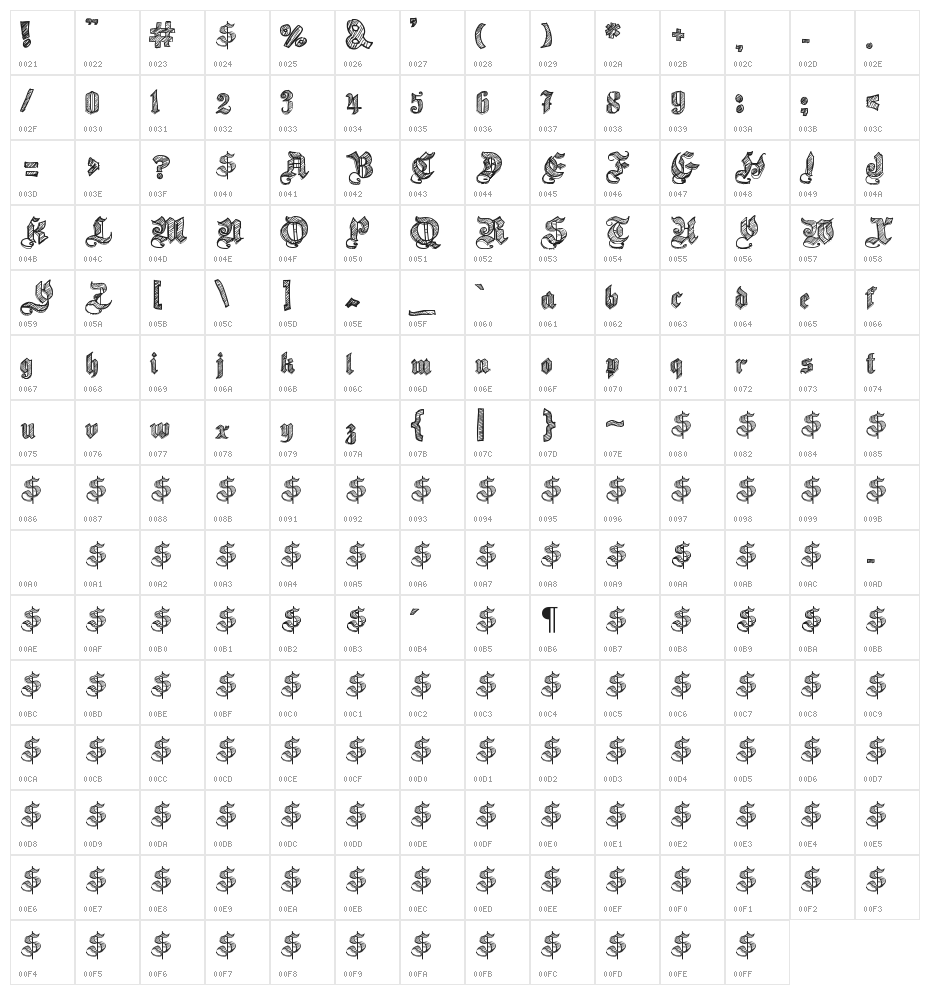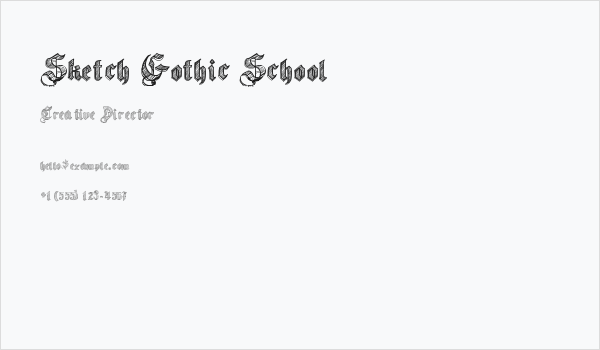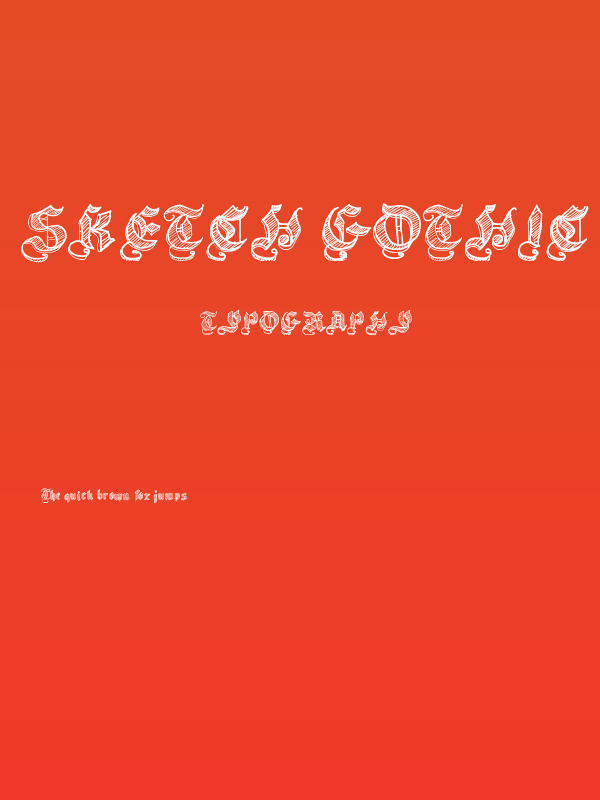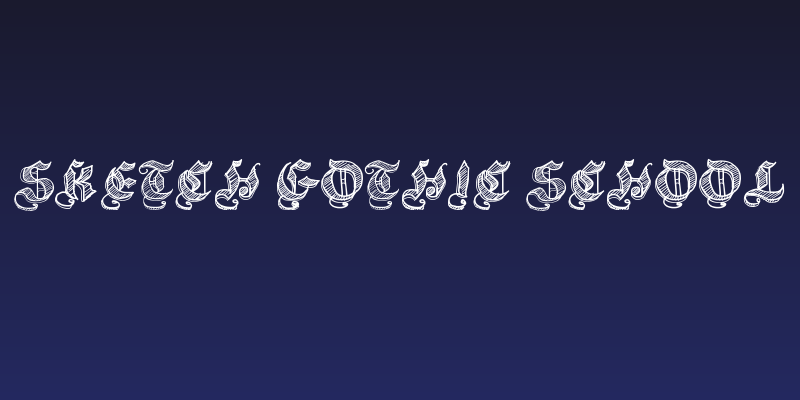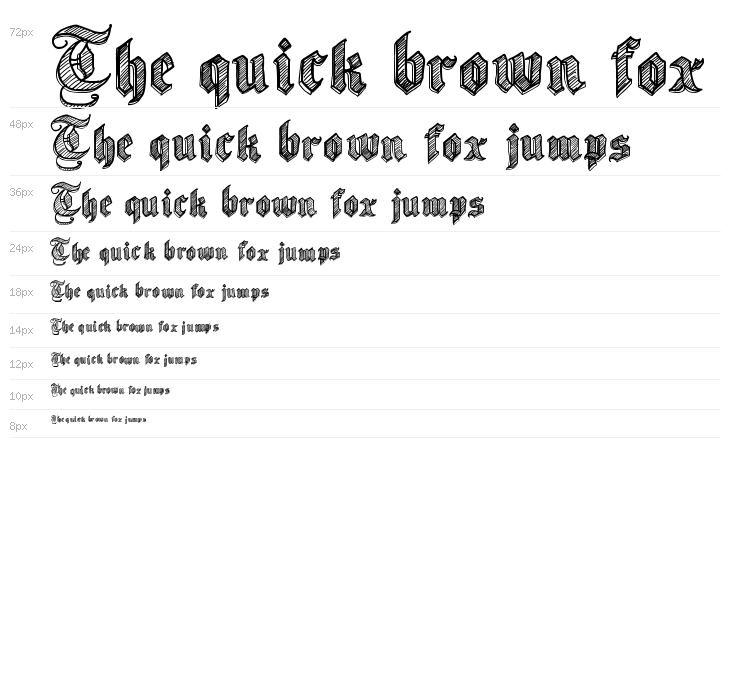
Sketch Gothic School Font
Sketch Gothic School Description
This font features a bold, decorative style with a sketch-like appearance, reminiscent of traditional Gothic or Blackletter typefaces. Each character is intricately designed with a hand-drawn quality, incorporating diagonal hatching that adds depth and texture. The uppercase and lowercase letters maintain a consistent style, with ornate flourishes and sharp angles that evoke a sense of historical elegance. The numerals and special characters are equally detailed, ensuring a cohesive look across all elements. This font is ideal for projects that require a vintage or medieval aesthetic, offering a unique and artistic flair.
| Proposed Projects | Ideal for vintage posters, book covers, tattoo designs, and themed event invitations. |